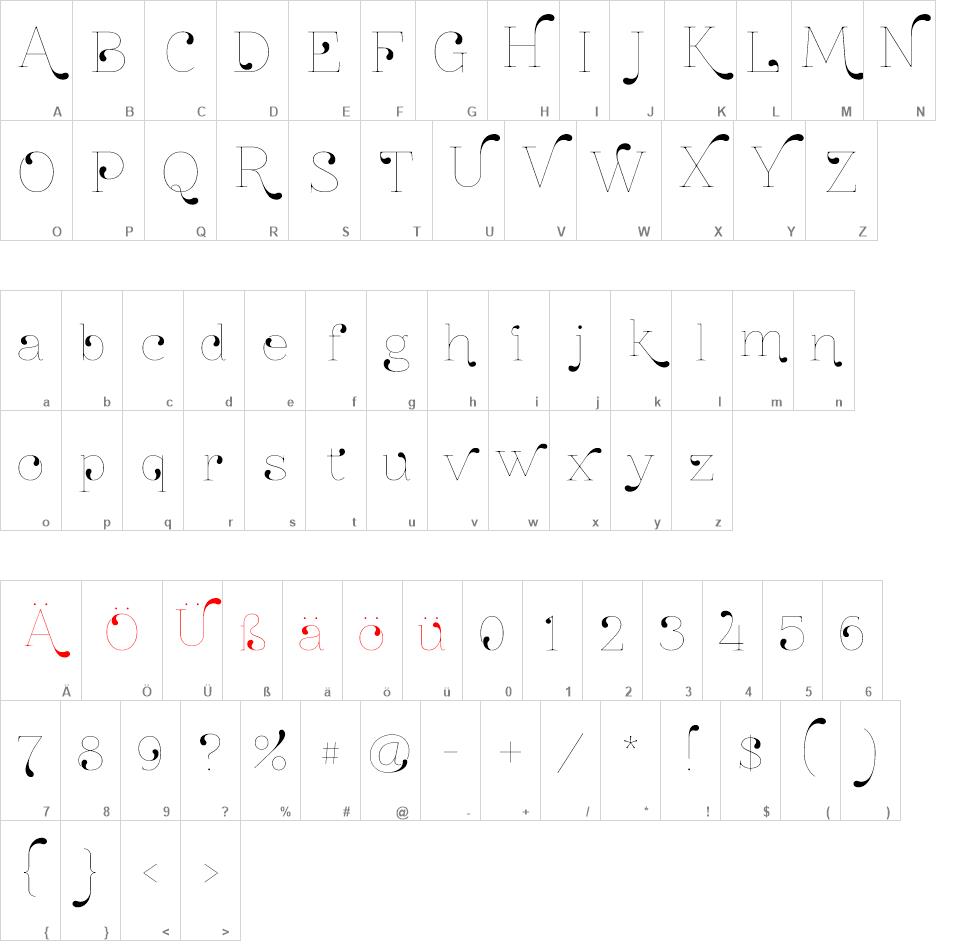
Znikomit No24
Decorative serif font ZnikomitNo24 based on my Font Znikomit. For cor­rect work Font need Open­Type fea­tures: Stan­dard Lig­a­tures and Con­tex­tual Alter­nates.